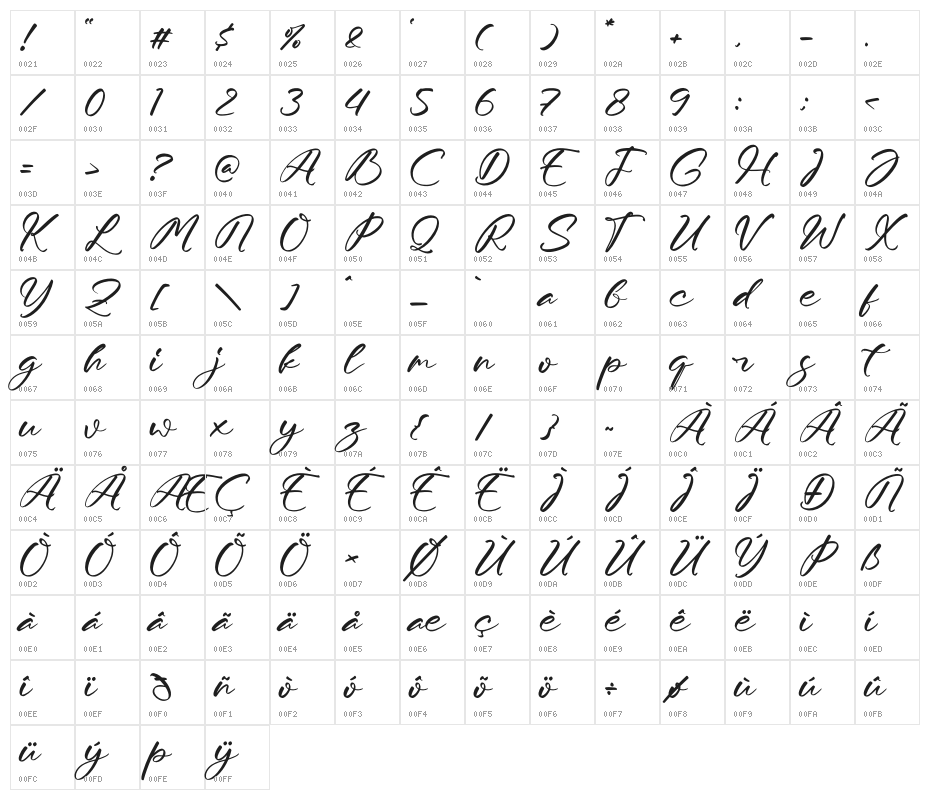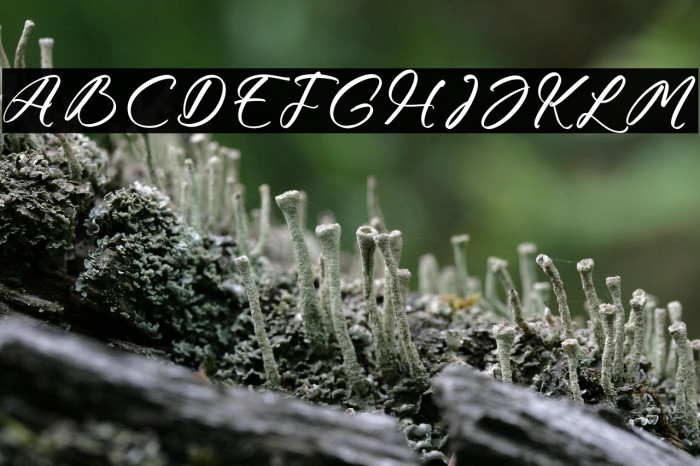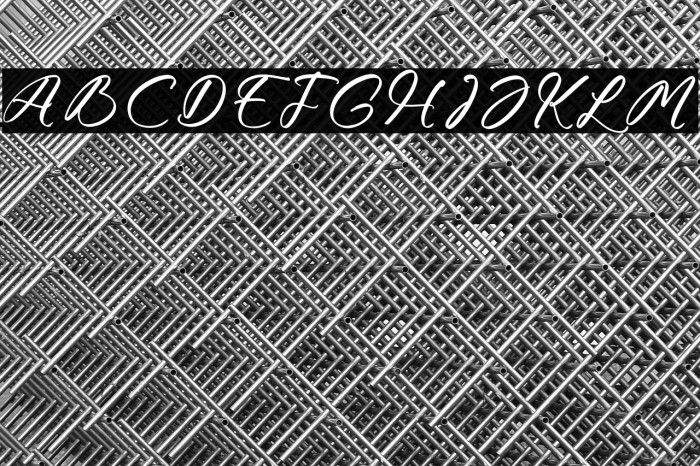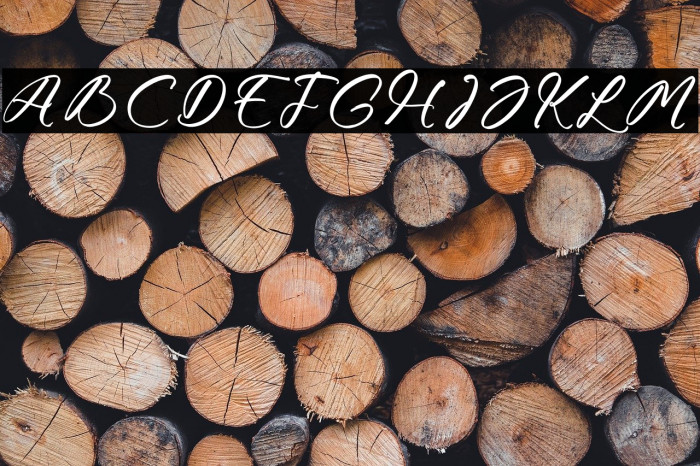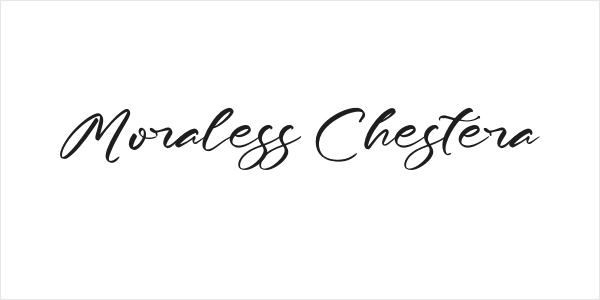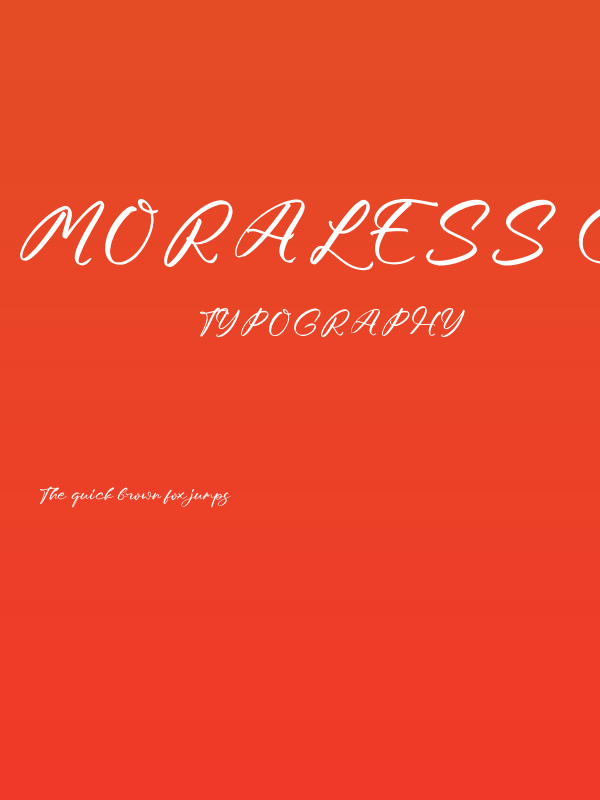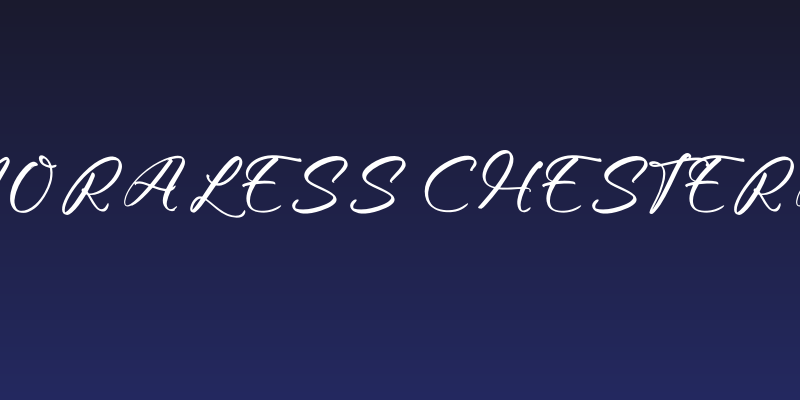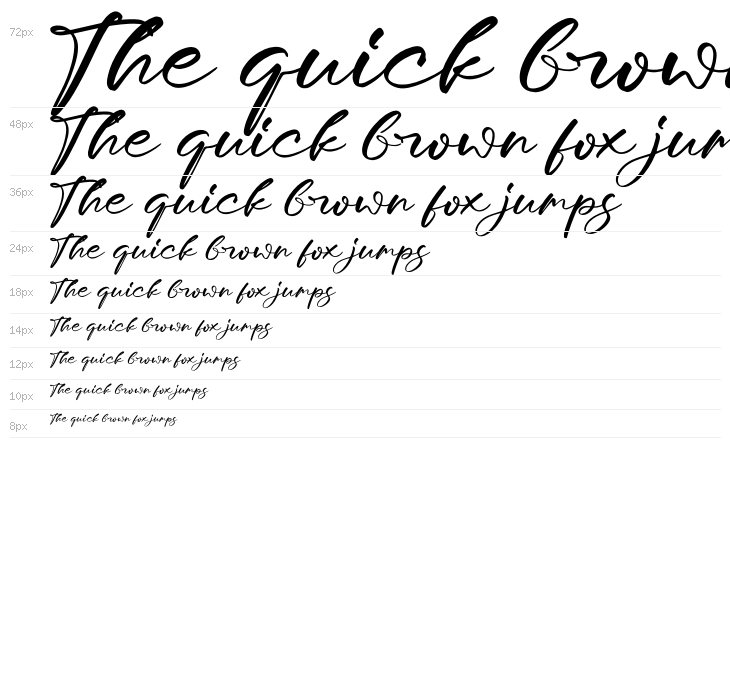
Moraless Chestera Font
Moraless Chestera Description
A flowing, cursive script font with a handwritten appearance, featuring smooth, connected strokes and a natural, casual elegance. The characters have moderate slant and variable stroke thickness, giving a dynamic and expressive feel.
| Overall Style | Decorative, Handwritten, Elegant |
| Use Case | Logos, Invitations, Headlines, Decorative text |
| Proposed Projects | Wedding invitations, greeting cards, personal branding, quotes, event posters, boutique logos. |